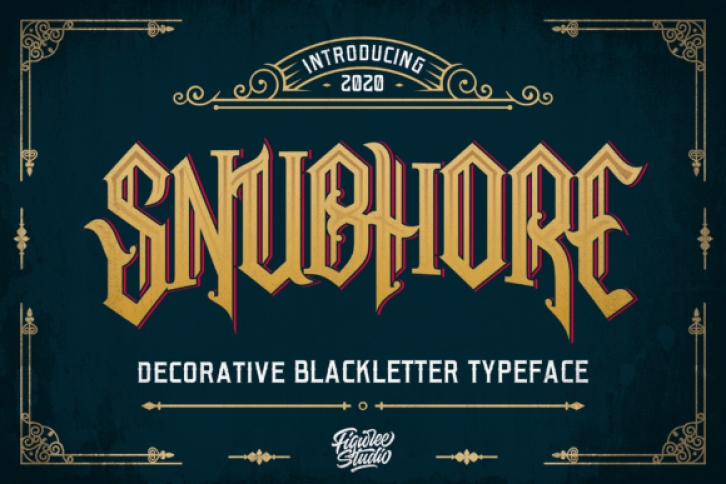
Snubhore is an incredibly unique blackletter font. Masterfully designed to become a true favorite, this font has the potential to bring each of your creative ideas to the highest level!